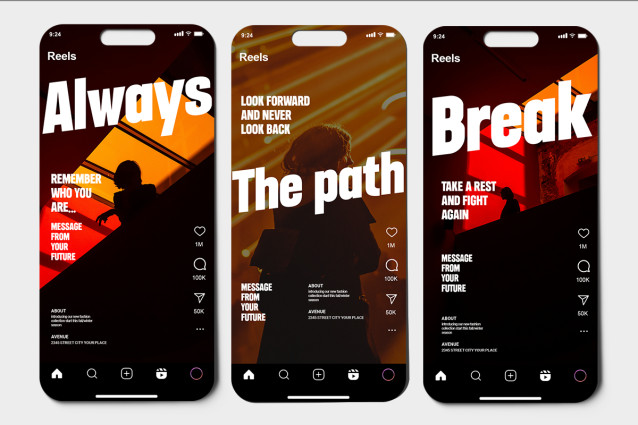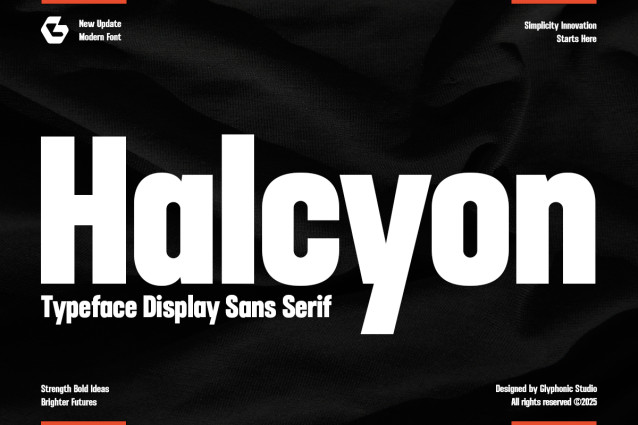
Halcyon Font
Halcyon Font is a Heavy Condensed Sans Font that blends modern edgy with robust style. Perfectly suited for headlines, branding, logos, packaging, editorial layouts, it’s crafted to leave a lasting impression.
With its high contrast strokes, modern sans, and future style, Halcyon brings personality and sophistication to any design.
Whether you’re designing for fashion, lifestyle, or artistic visuals, this typeface offers versatility and refined style.